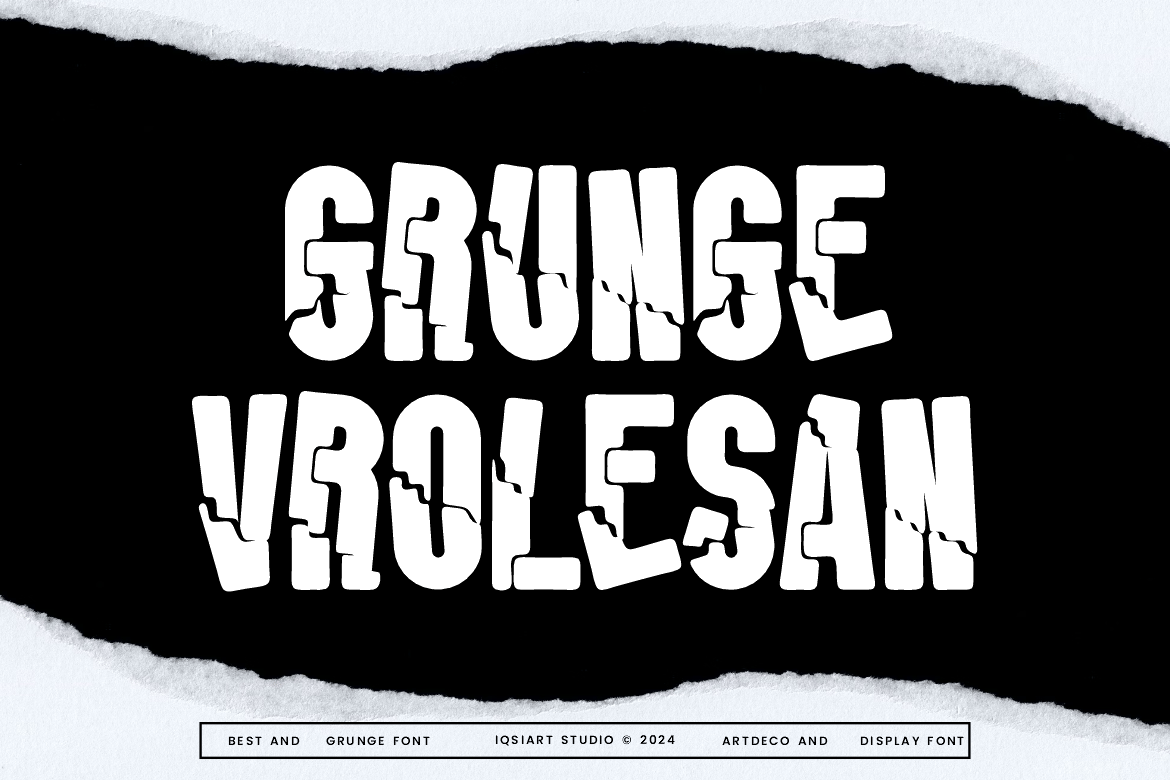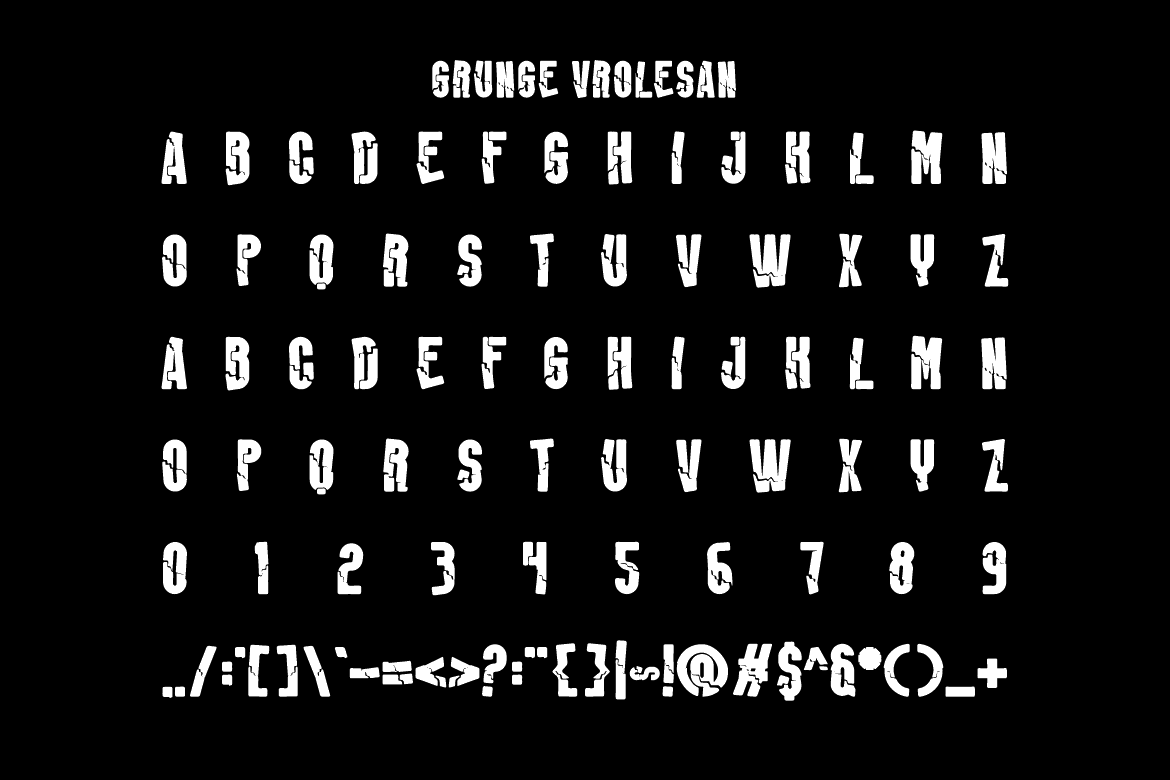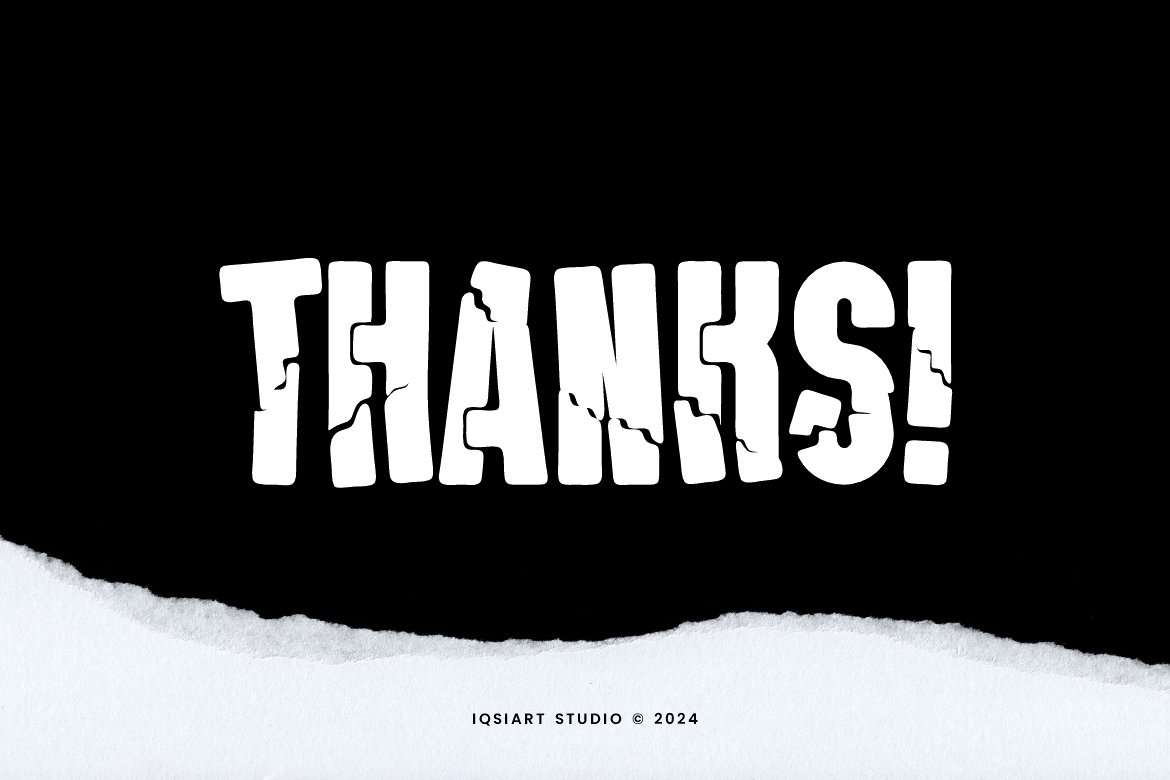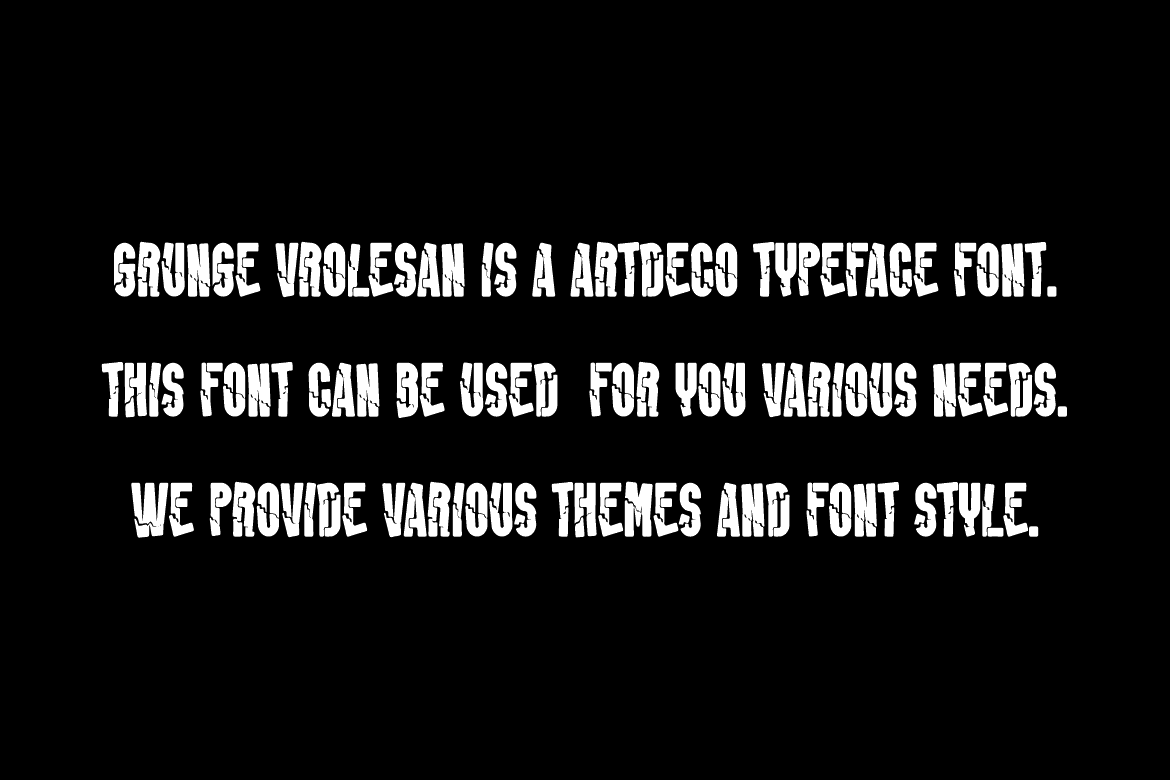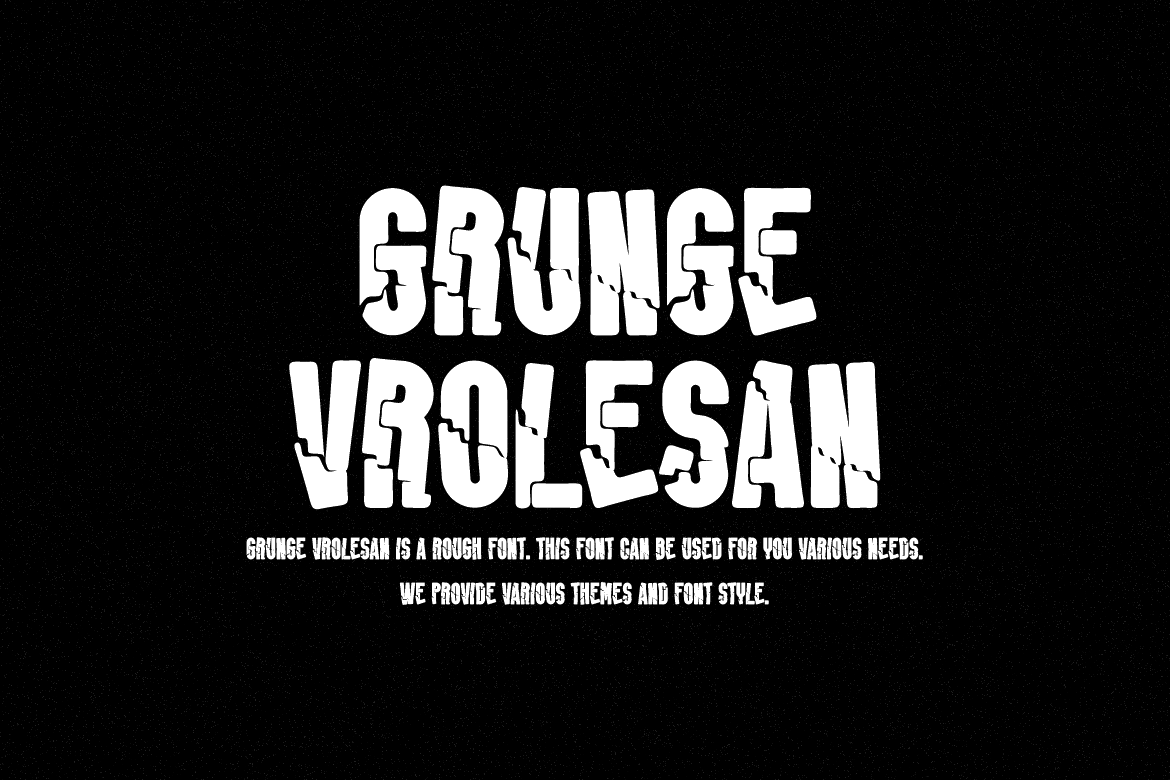
Grunge Vrolesan – Rough & Action Display Font
Grunge Vrolesan Font is a best and authentic display font.
This font can be used for your various needs.